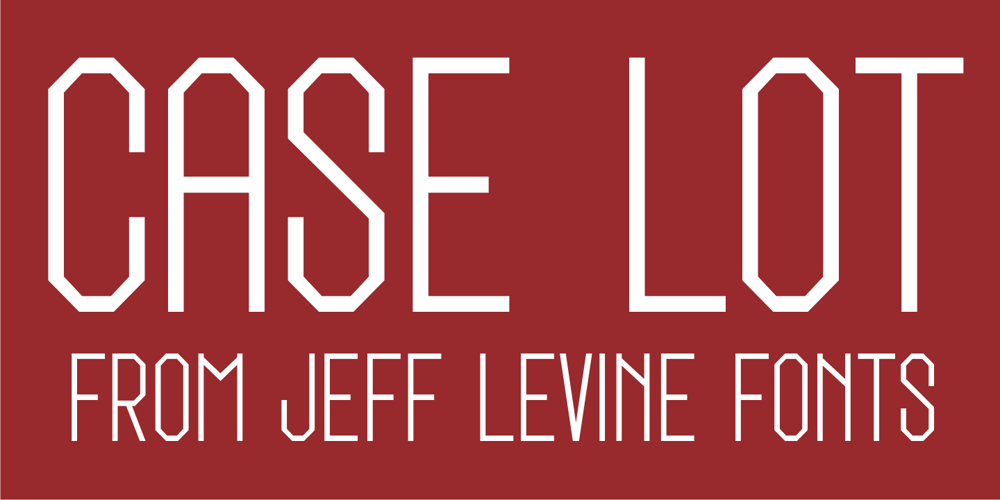
Case Lot JNL Font Family was designed by Jeff Levine and published by Jeff Levine. Case Lot JNL contains 1 styles and family package options. A style example found within the pages of a vintage type foundry catalog inspired Case Lot JNL. The design is a classic early 20th Century sans with chamfered corners.